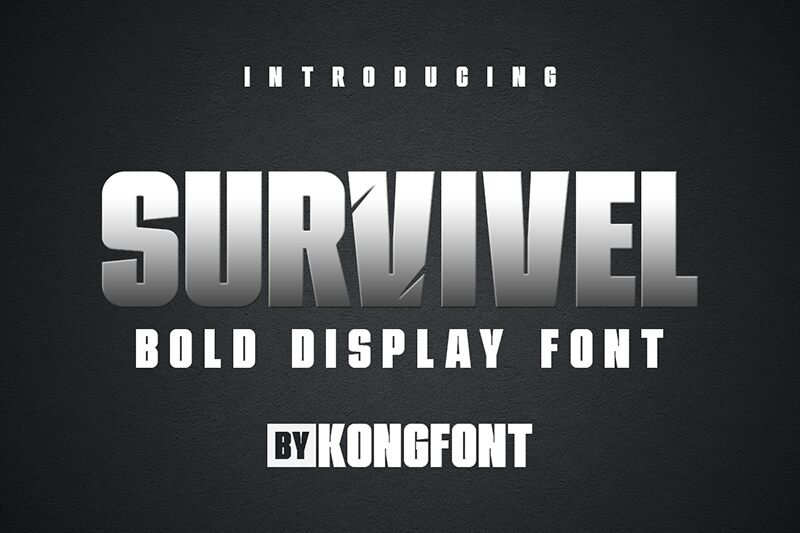
Survivel font by Kong Font is a free sans-serif font with a strong, geometric, and modern look. The industrial and futuristic design within each character creates commanding visual communication with great versatility. Sturdy and quite assertive, Survivel features a highly legible design that can result in seamless typing and reading experiences.
Bringing your ideas to life will no longer require much effort when you use this impressive display of Survivel. It can accentuate business or advertising work or enhance fun, informal projects. Use it in logos, posters, billboards, themed party invitations, magazine covers, web pages, books, or sign design.